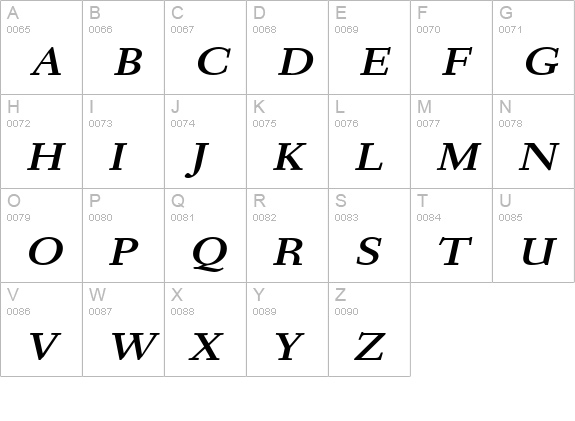
Transit Wide BoldItalic Font Details
Transit Wide BoldItalic is a distinctive, extended-width variant in the Transit typeface family \xE2\x80\x94 well suited to design and typography projects.
Transit Wide BoldItalic font is a stunning and versatile typeface that exudes confidence and modernity. Its bold and italic design adds an extra touch of elegance and uniqueness to any project, making it perfect for headlines, titles, and branding materials. This font's wide proportions give it a strong presence, allowing it to command attention and stand out on any medium. Whether it's used in print or digital designs, Transit Wide BoldItalic font will captivate viewers and leave a lasting impression. One of the best things about Transit Wide BoldItalic font is that it is free! Yes, you read that right. This exceptional font is freely available to download at FontsMarket.com. This means that you can enhance your creative endeavors without having to worry about any additional costs. Whether you're a professional designer, a student, or someone who just loves experimenting with typography, Transit Wide BoldItalic font is a must-have in your font library. Its bold and italic nature, combined with its wide proportions, make it a versatile choice for various design projects. So why wait? Head over to FontsMarket.com and download Transit Wide BoldItalic font today, and let your creativity soar to new heights.